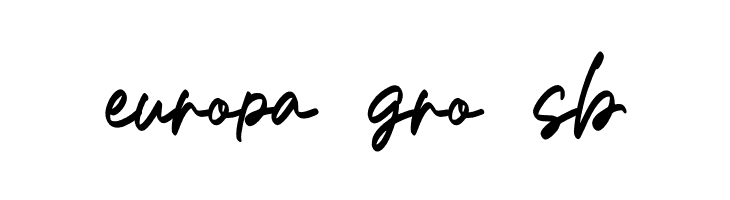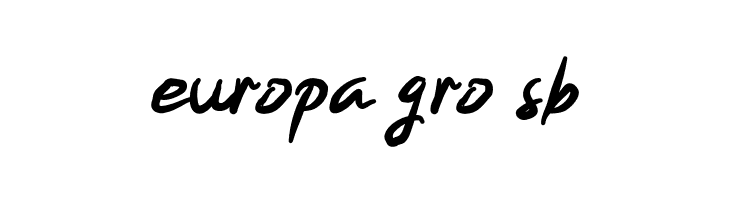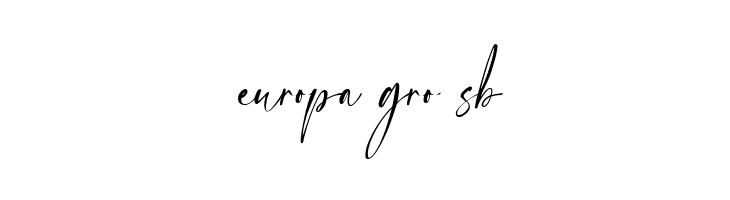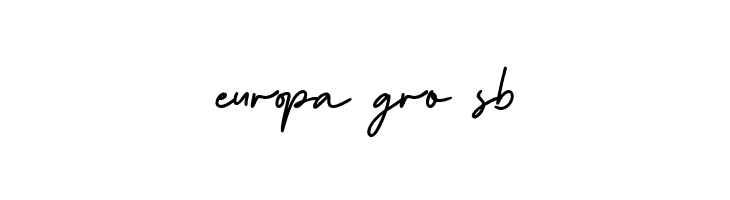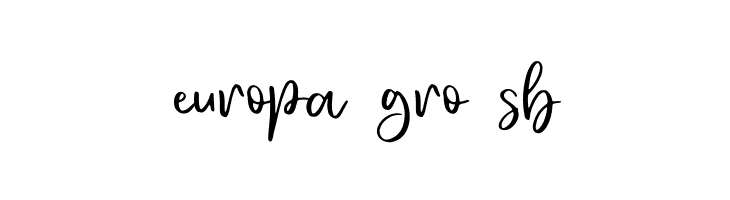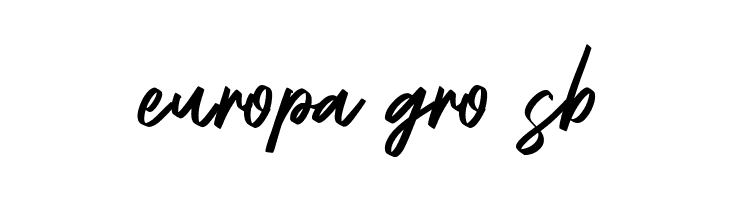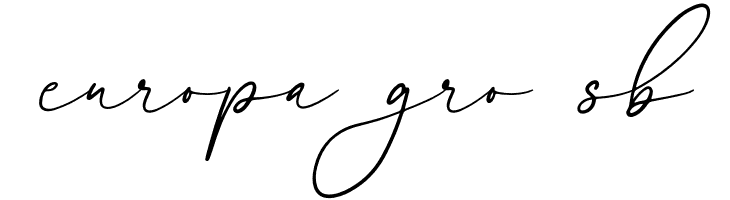
( Fonts by Perspectype Studio )
Energetic, brush-style handwritten script with playful, fluid strokes.
( Fonts by Kong Font )
A relaxed, handwritten script with a natural flow.
( Fonts by Steven Joss )
Expressive handwritten script with energetic, casual strokes.
( Fonts by Figstype )
Elegant handwritten script with tall, narrow forms and high contrast.
( Fonts by Staircase Studio )
Elegant, handwritten script with connected, flowing strokes.
( Fonts by StringLabs )
Handwritten script with tall, narrow, and fluid strokes.
( Fonts by Niskala Huruf )
Casual, monoline handwritten script with tall, narrow forms.
( Fonts by Letterafa Studio )
Casual handwritten script with playful loops and fluid strokes.
( Fonts by Hatf Type )
Expressive handwritten script with a lively, informal style.
( Fonts by NJ Studio )
Elegant, handwritten cursive script with high contrast and connected strokes.